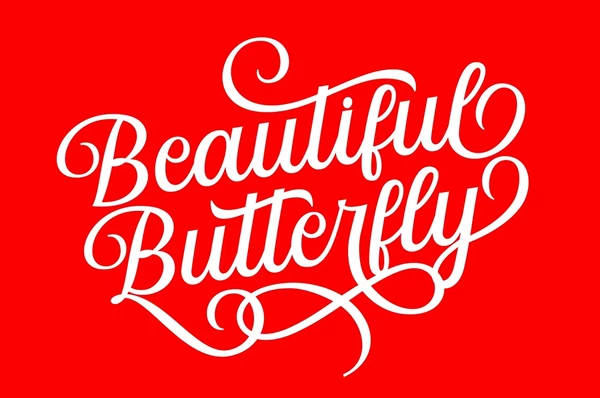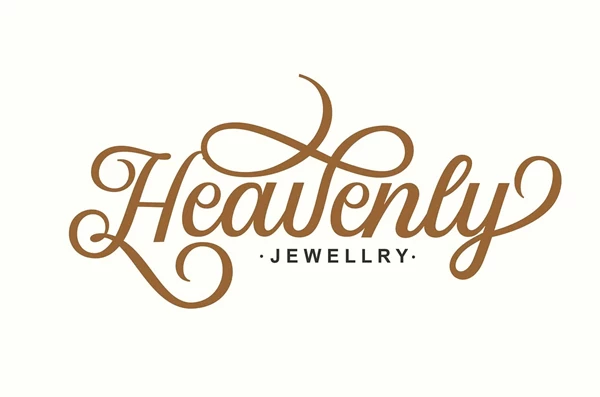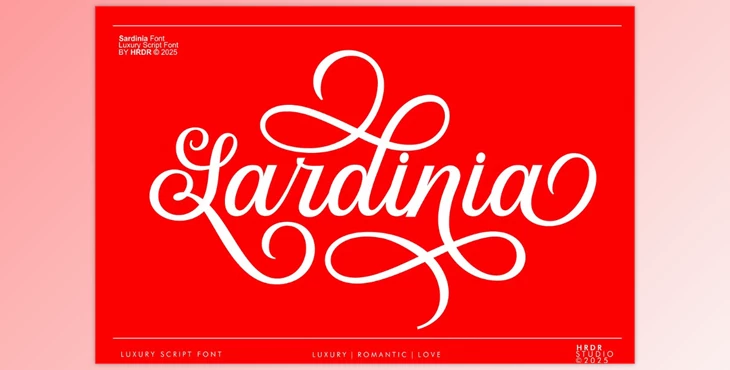
Sardinia Script Font:
The Sardinia Script Font is an sophisticated and refined script font targeting creative design projects giving visually stunning results. Perfect suited for branding, wedding invitations, and other print and digital media, all fashion-forward designers will appreciate its contemporary aesthetic.
With its extensive collection of characters, advanced typographic styling options, and smart placement of design structures this font is suitable for all sorts of platforms and languages making it flexible and dependable.
Some great features of Sardinia Script Font:
- Premium handcrafted script font for wedding branding, photography, and more.
- Includes upper and lower case letters, numerals, and cross-language support.
- Includes stylistic alternates (Ss01–Ss06) and ligatures for enhanced customization.